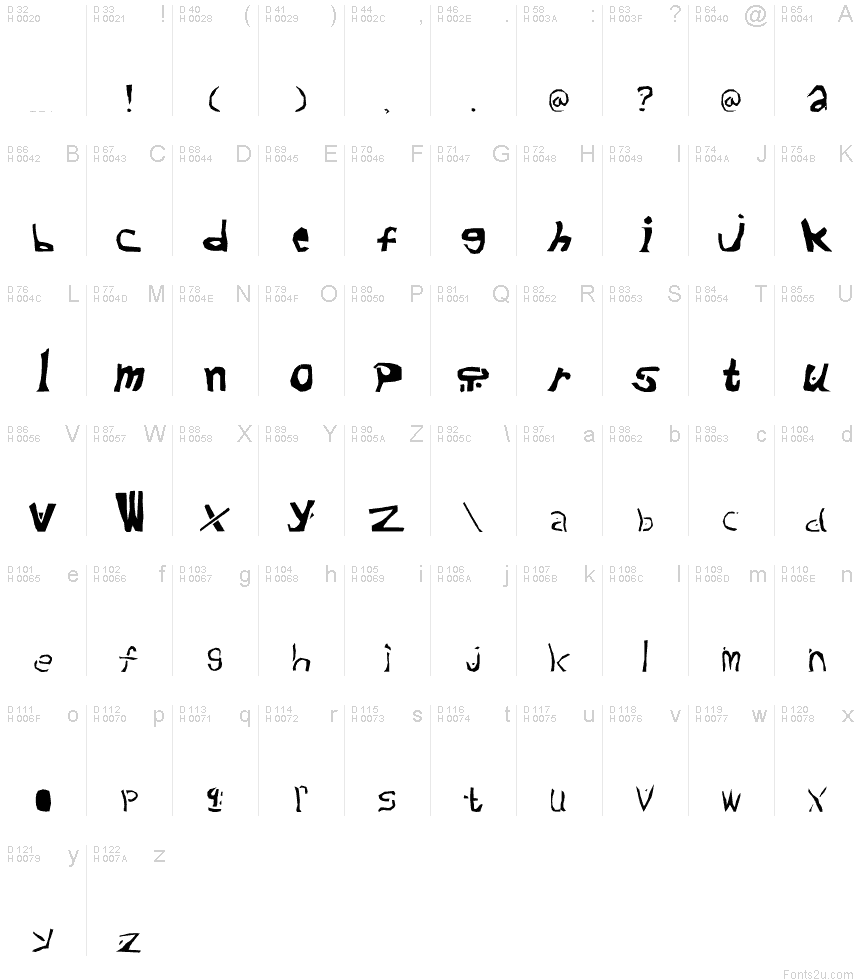
CafeAuShite
CafeAuShite font by Mike Larson is a free distorted display font with the raw snap of a marker scrawl on a torn flyer. Its uneven strokes, blunt corners, and jumpy spacing give words a restless, cut-loose rhythm that feels messy on purpose—loud, scrappy, and hard to ignore.
Using CafeAuShite works beautifully for punk posters, zines, album covers, skate graphics, horror titles, protest art, and DIY merch where polish would kill the mood. Keep this free font large so the rough texture stays crisp, and pair it with a plain sans serif for body copy or small supporting text.